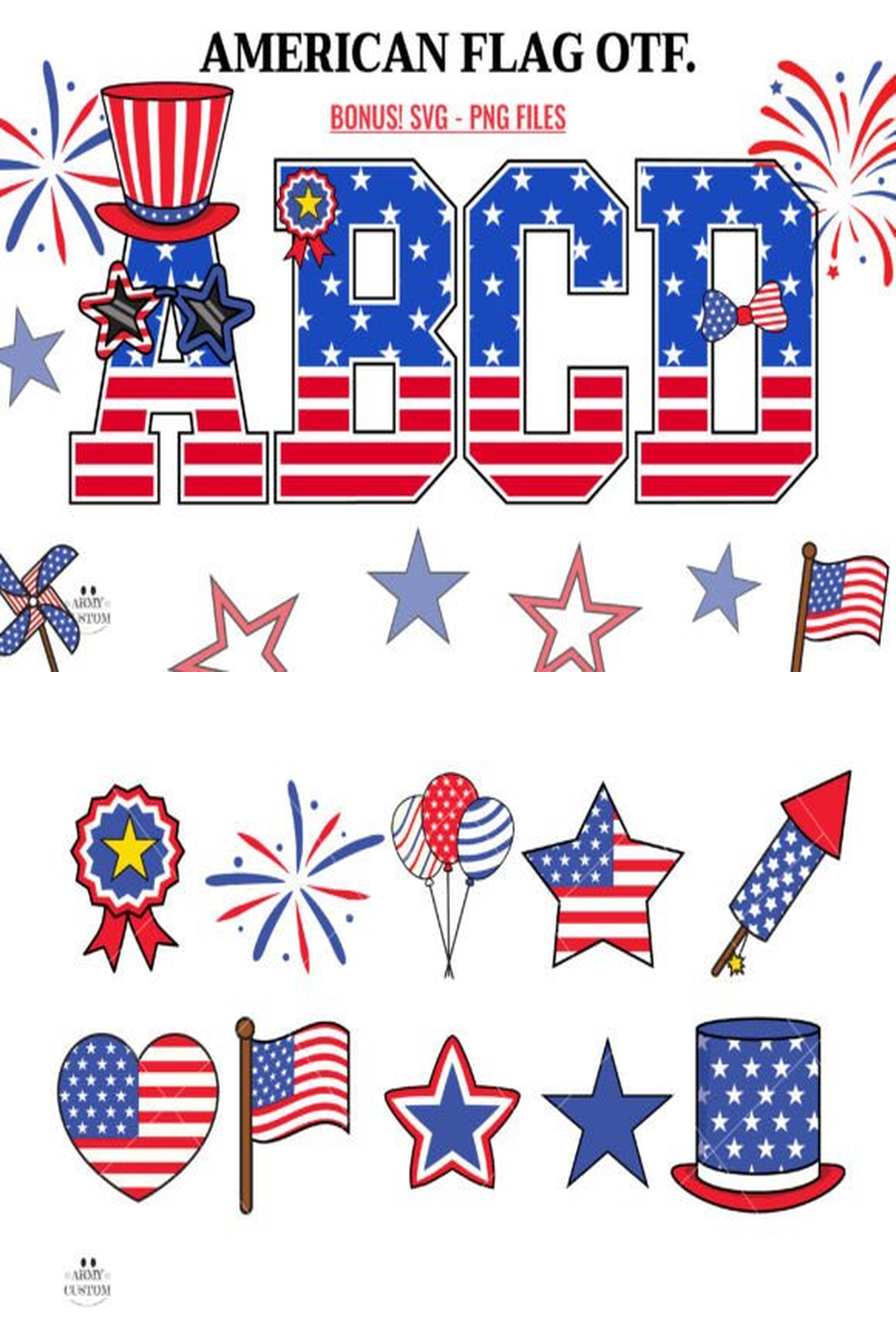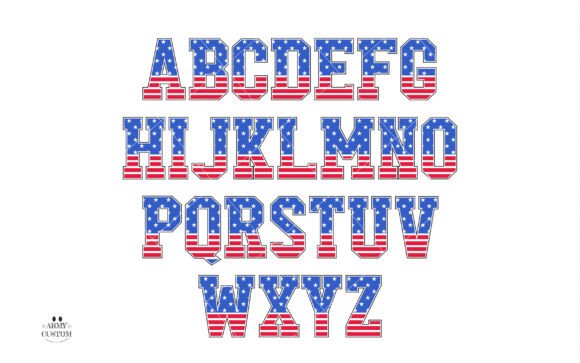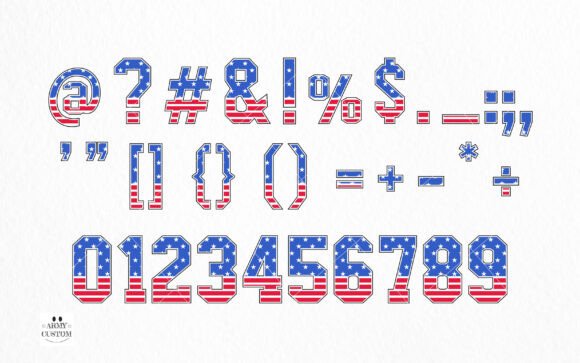
About the American Flag Font
Discover the charm of American Flag Font. This font is a perfect blend of modern aesthetics and classic appeal. Immerse yourself in the spirit of patriotic celebrations with the American Font. True to its name, this font captures the essence of Memorial Day Americana in every curve and line. Uniquely designed and inspired by the heart of the United States, it embodies the charm and spirit of American aesthetics. This is not just a font; it’s a tribute to the Land of the Free, brought to life through typography. The American Font is sure to infuse an unmatched patriotism into your creative projects.